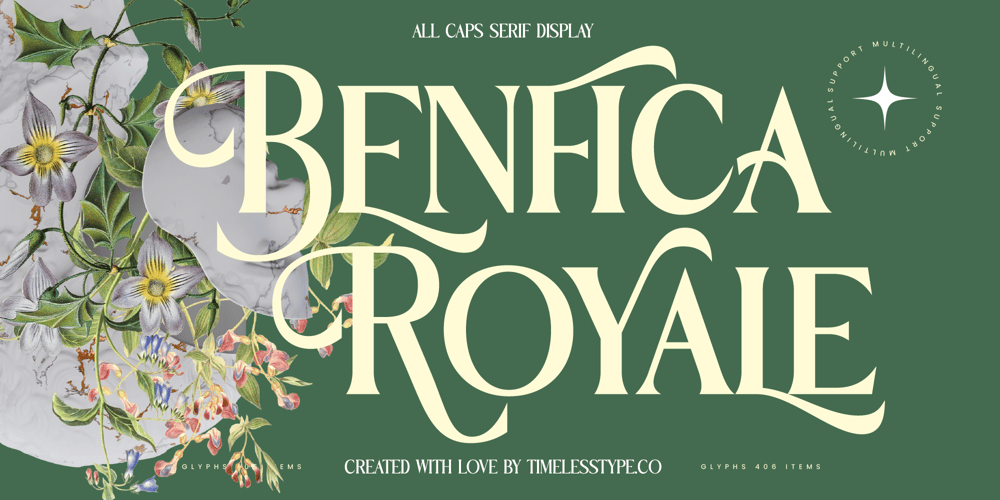
Benfica Royale
Benfica Royale font
Benfica Royale Font Family was designed by Heru Utama Putra and published by Timelesstype Studio. Benfica Royale contains 2 styles and family package options. Benfica Royale – All Caps Serif Display , from Timelesstype, Suitable for any projects such as: logos, branding projects, homeware designs, product packaging, mugs, quotes, posters, shopping bags, t-shirts, book covers, name card, invitation cards, greeting cards, label, photography, watermark, special events, and all your other luxury and beautiful projects that need a Luxury Serif taste.